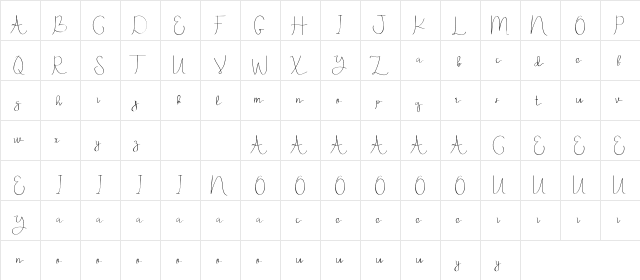
Meiriona Demo Regular
| Foundry | Edric Studio |
| Designer | Saila Nurissalma & Suci Anita |
Design Context for Meiriona Demo Typeface
Meiriona Demo is a composed and adaptable typeface that performs quietly and consistently across a wide range of design contexts.